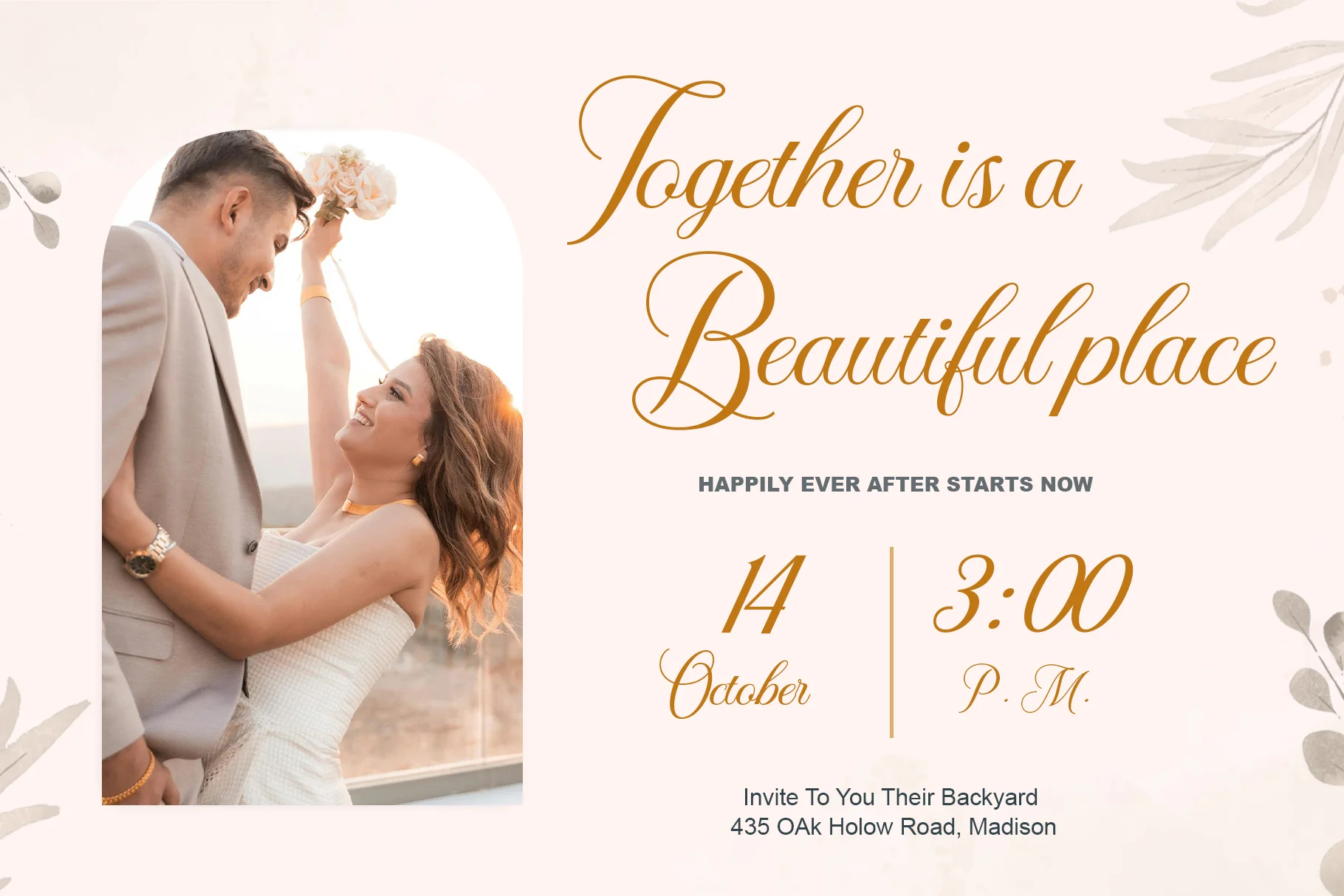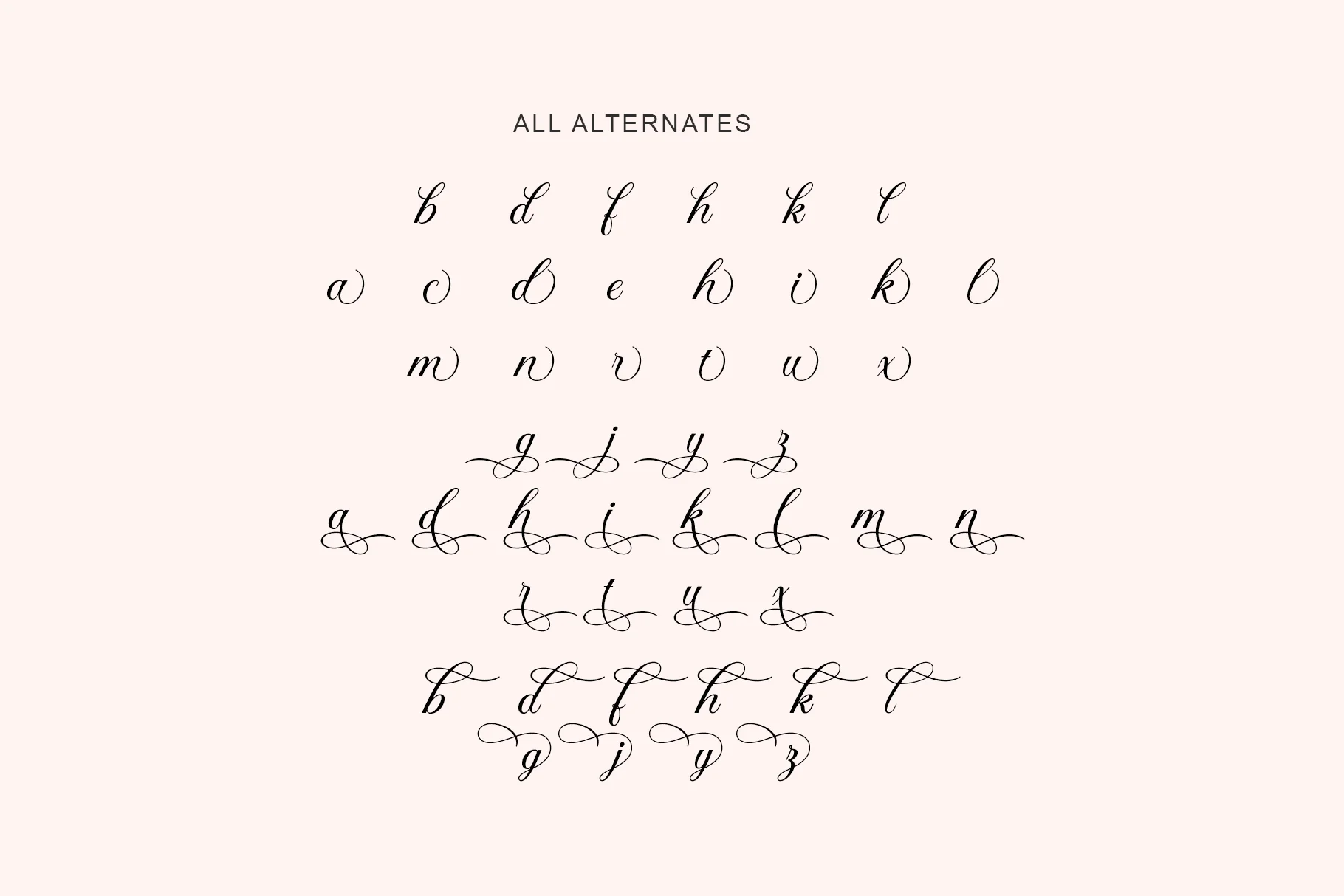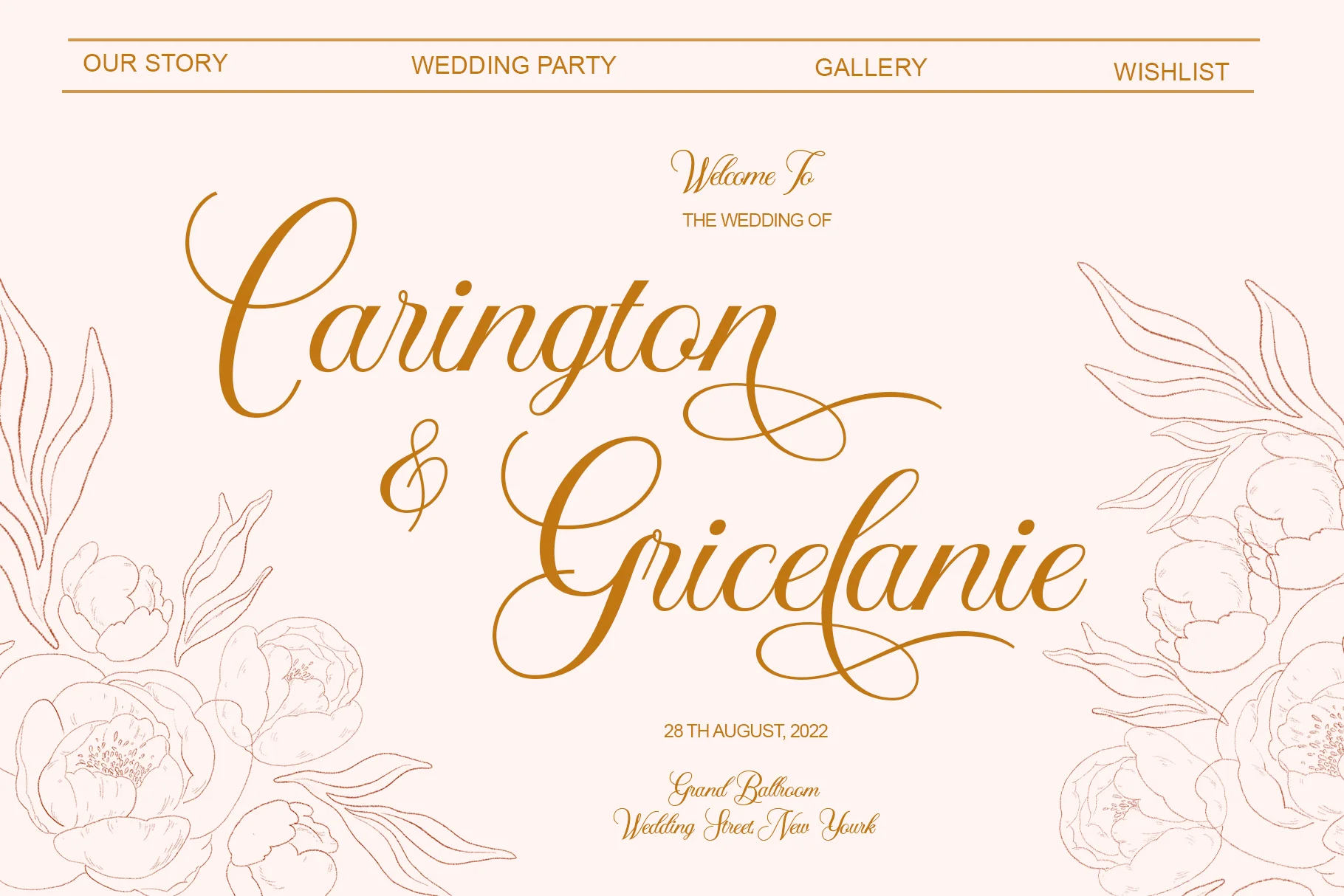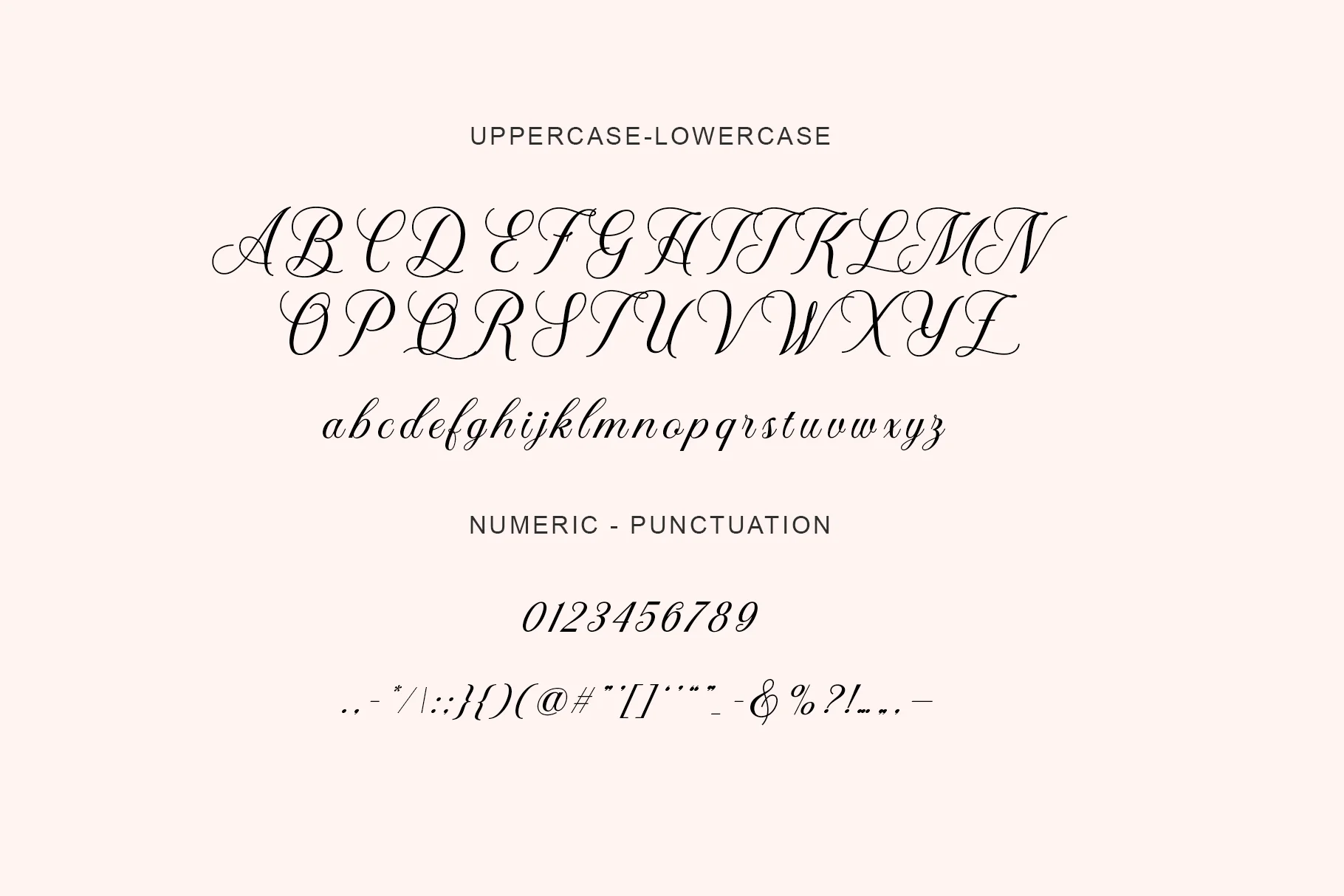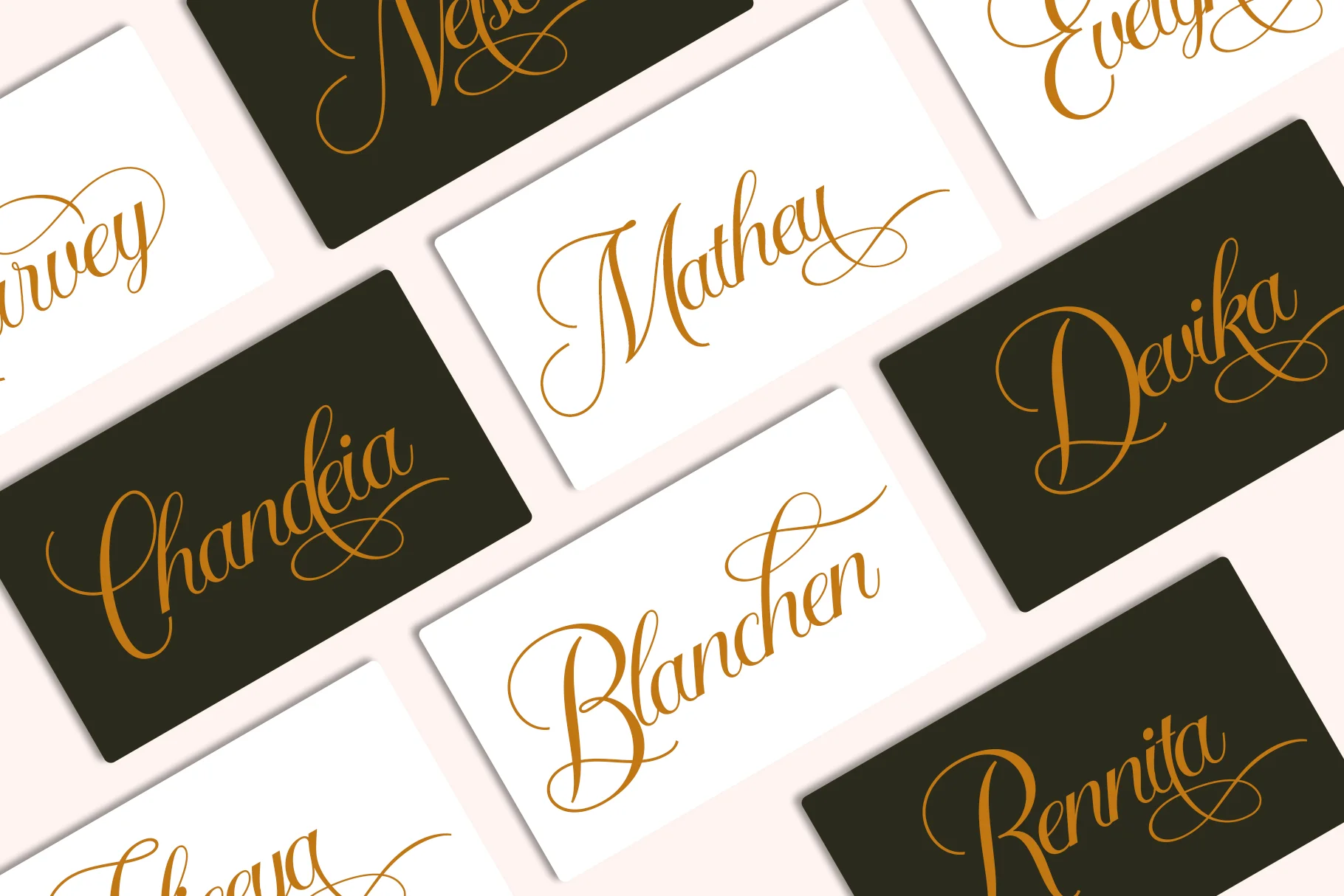
Ashley
"Ashley" an elegant and captivating representation of a calligraphy font. The font exudes a sense of luxury, romance, and personal touch. will perfect for many project: book, magazines, logo, branding, photography, quotes, blog header, poster, advertisements, etc.
- Uppercase and Lowercase – Complete range of letter cases for diverse uses.
- Numerals – Includes numbers for various creative needs.
- Functional – Designed for efficiency and aesthetic appeal.
- Multilingual Support – Includes characters for multiple languages.
- Stylistic Variations – Offers creative style options.